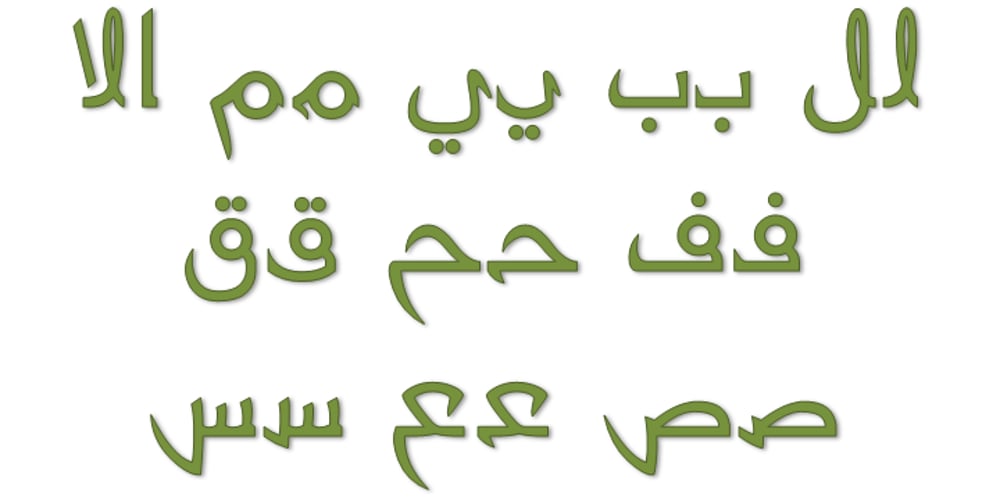
Mutamathil Taqlidi Font Family was designed by Saad D. Abulhab and published by Arabetics. Mutamathil Taqlidi contains 4 styles and family package options. The Mutamathil Taqlidi type family is the largest size member of the Mutamathil type style. It has one glyph for every basic Arabic Unicode character or letter and one additional, final-position, glyph for each Arabic letter that is normally connected with other letters from both sides in traditional cursive Arabic strings. With each glyph being slightly symmetrical around its vertical axis, this family is only suitable for right to left ordering. The Mutamathil Taqlidi family includes all required Lam-Alif ligatures and uses final position glyph substitutions, ligature substitutions, and marks positioning. Text strings composed using types of this family are non-cursive with stand alone isolated glyphs. The Mutamathil Taqlidi family includes both Arabic and Arabic-Indic numerals, all required diacritic marks, in addition to all standard English keyboard punctuations and major currency symbols. The fonts in this family support the following scripts: Arabic, Persian, Urdu, Pashtu, Kurdish, Baluchi, Kashmiri, Kazakh, Sindhi, Uyghur, Turkic, and all extended Arabic scripts.